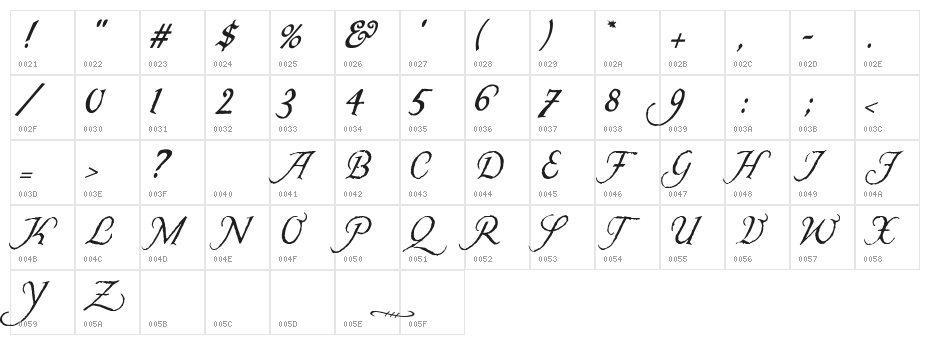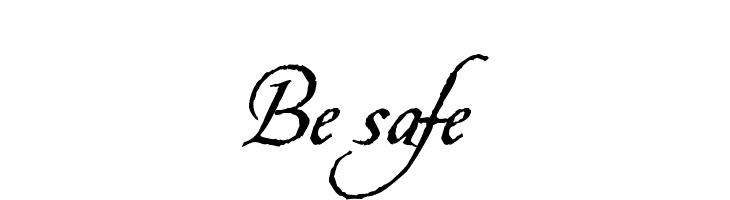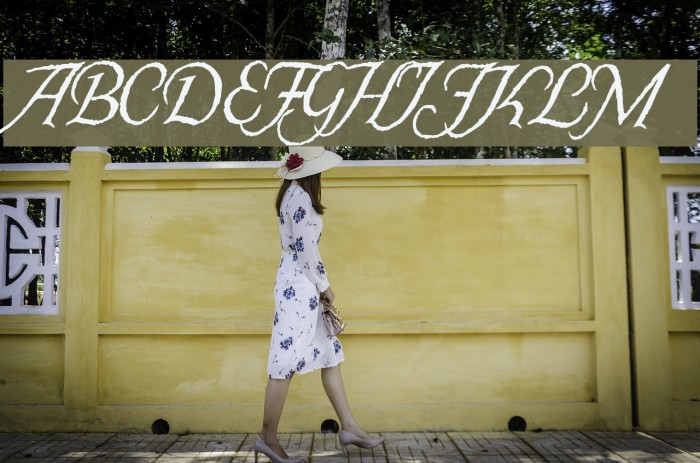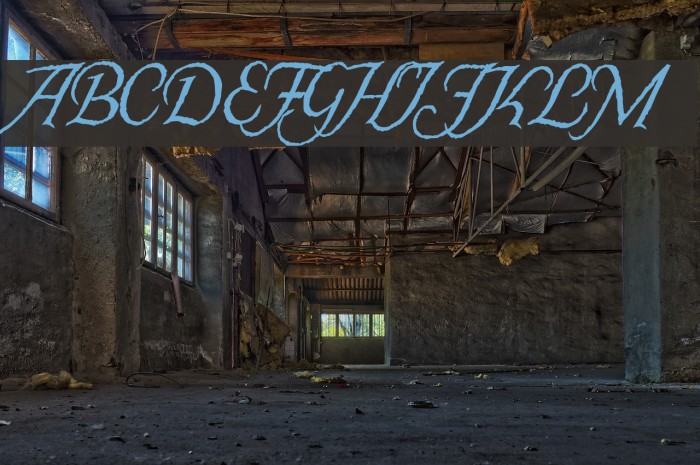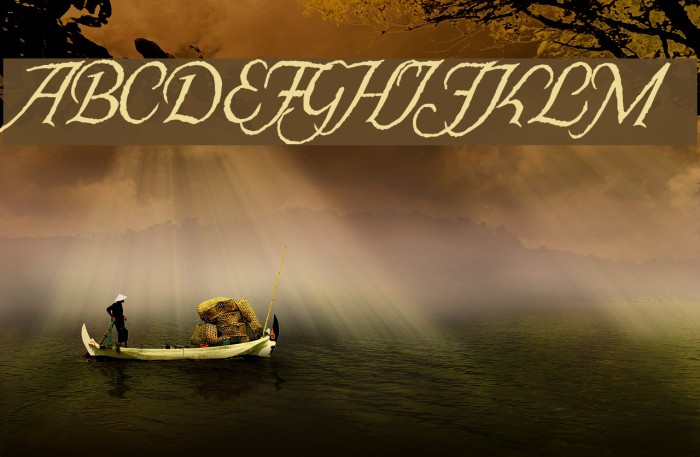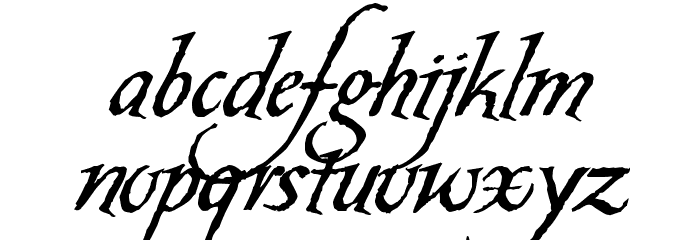
Be safe Font
Be safe Description
This font exudes a classic and elegant script style, characterized by its flowing, cursive letterforms. The uppercase letters are ornate, with intricate loops and flourishes that give a sense of sophistication and grace. The lowercase letters maintain a consistent style, with smooth connections and a slightly slanted orientation that enhances readability. The numerals are bold and distinctive, matching the overall decorative theme. Special characters are crafted with the same attention to detail, ensuring a cohesive look across all glyphs. This font is ideal for projects that require a touch of elegance and formality.
| Overall Style | Classic |
| Use Case | Logos, Invitations, Decorative text |
| Proposed Projects | Ideal for wedding invitations, formal event programs, elegant branding, and luxury product packaging. |